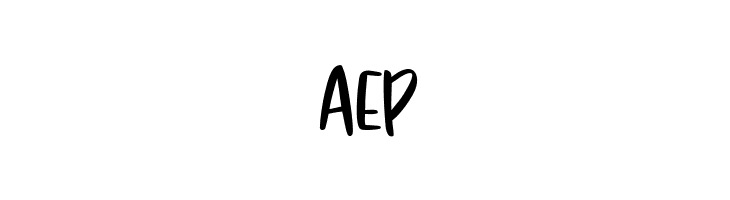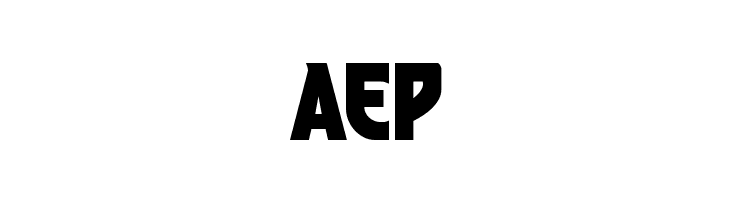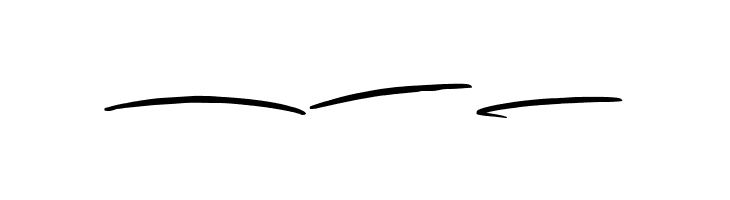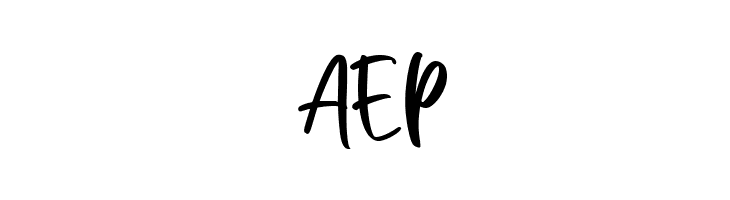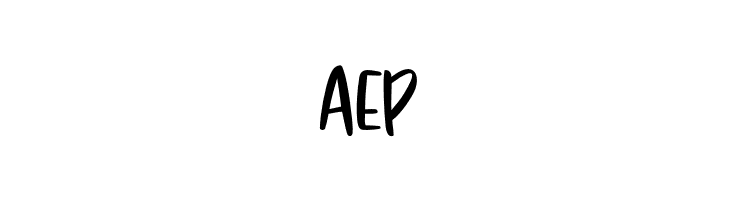
A bold, geometric font with a strong, industrial aesthetic.
A playful and whimsical font with cartoonish face-like characters.
A playful, handwritten font with smooth curves and a casual, friendly style.
A playful, casual handwritten font with smooth curves and bold strokes.
A whimsical and decorative font with playful swashes and bold numbers.
A playful, decorative font with bold numbers and elegant swashes.
A bold, handwritten-style font with brush-like strokes and a playful vibe.
A bold, 3D decorative font with strong shadow effects and geometric design.
A bold, angular font with a strong, geometric style.
A bold, 3D geometric font with a dynamic and impactful style.